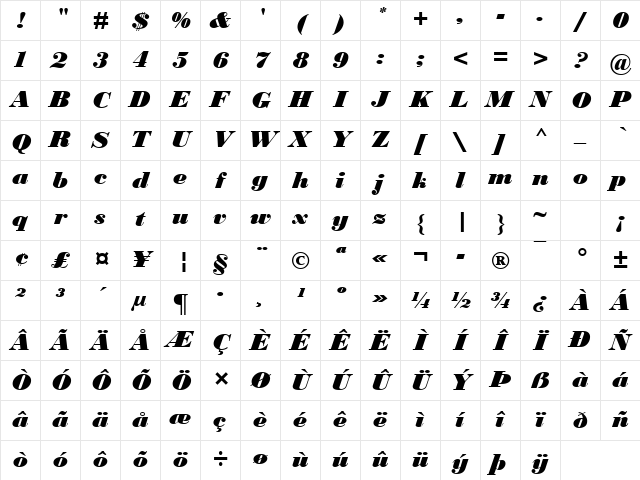
Bodoni MT Black Italic
Foundry: Agfa Monotype Corporation
Designer: Monotype Type Drawing Office
Bodoni MT Black Family
Design Context for Bodoni MT Black
Bodoni MT Black is a composed and adaptable typeface that performs quietly and consistently across a wide range of design contexts. The slanted form adds forward momentum and visual energy.
Pro Tip: Use Bodoni MT Black for emphasis, pull quotes, and subheadings where its slanted energy can add rhythm to the layout.